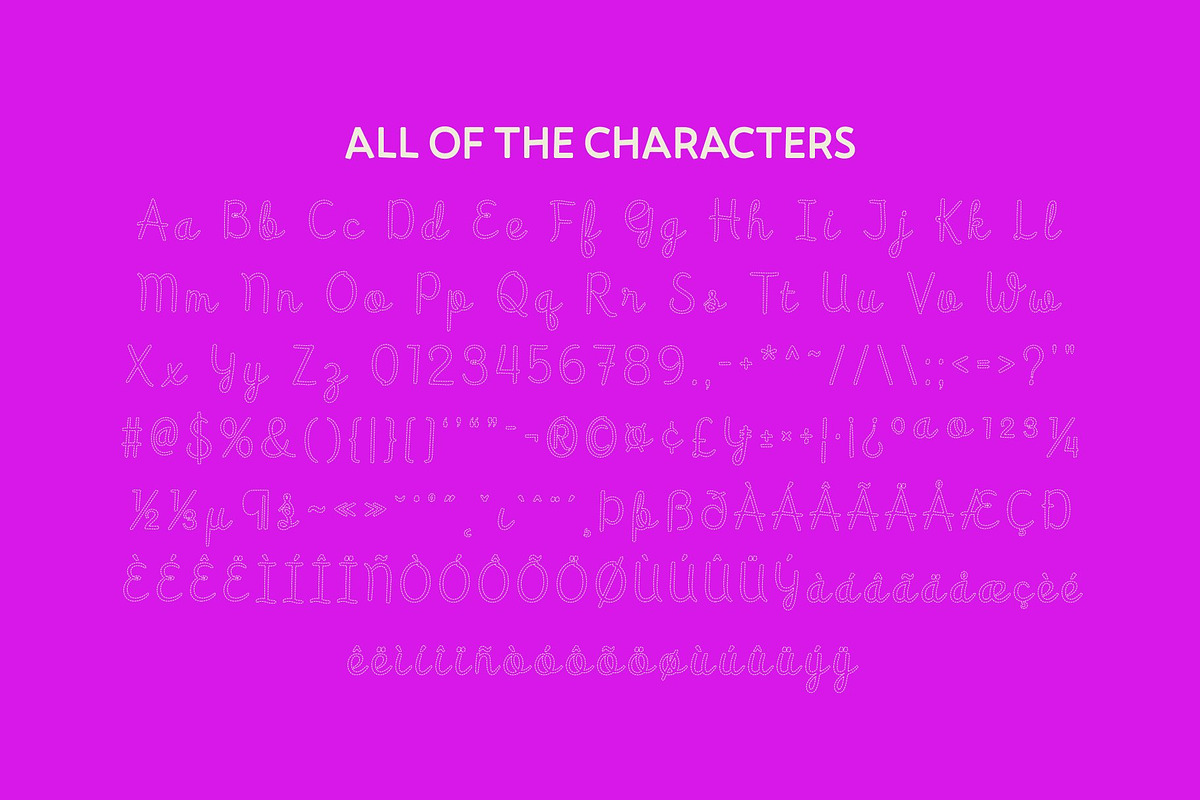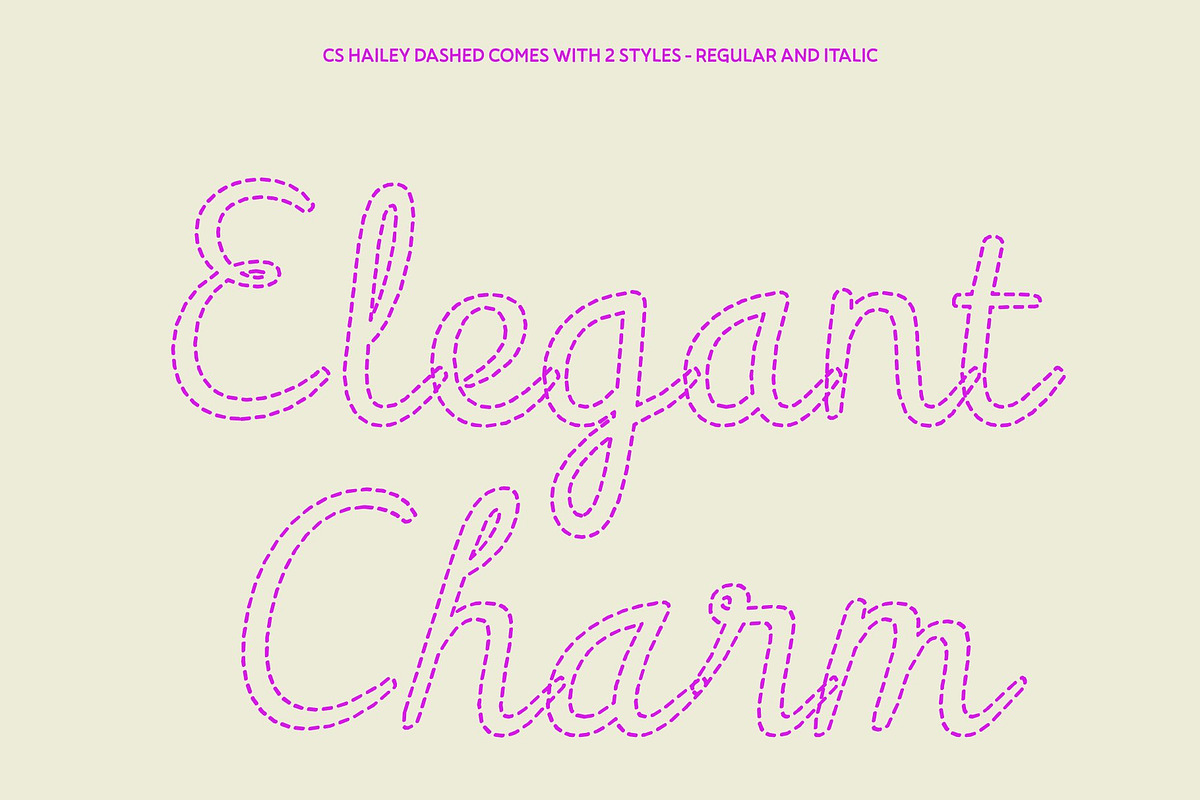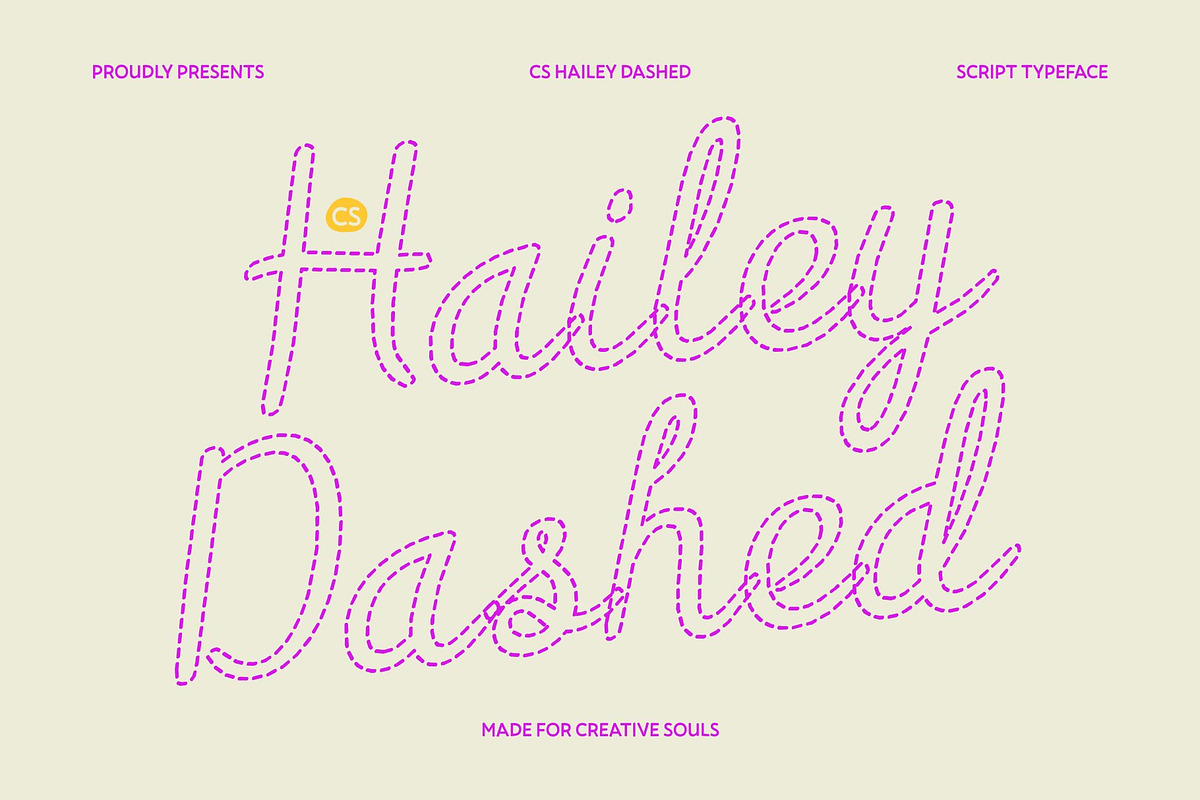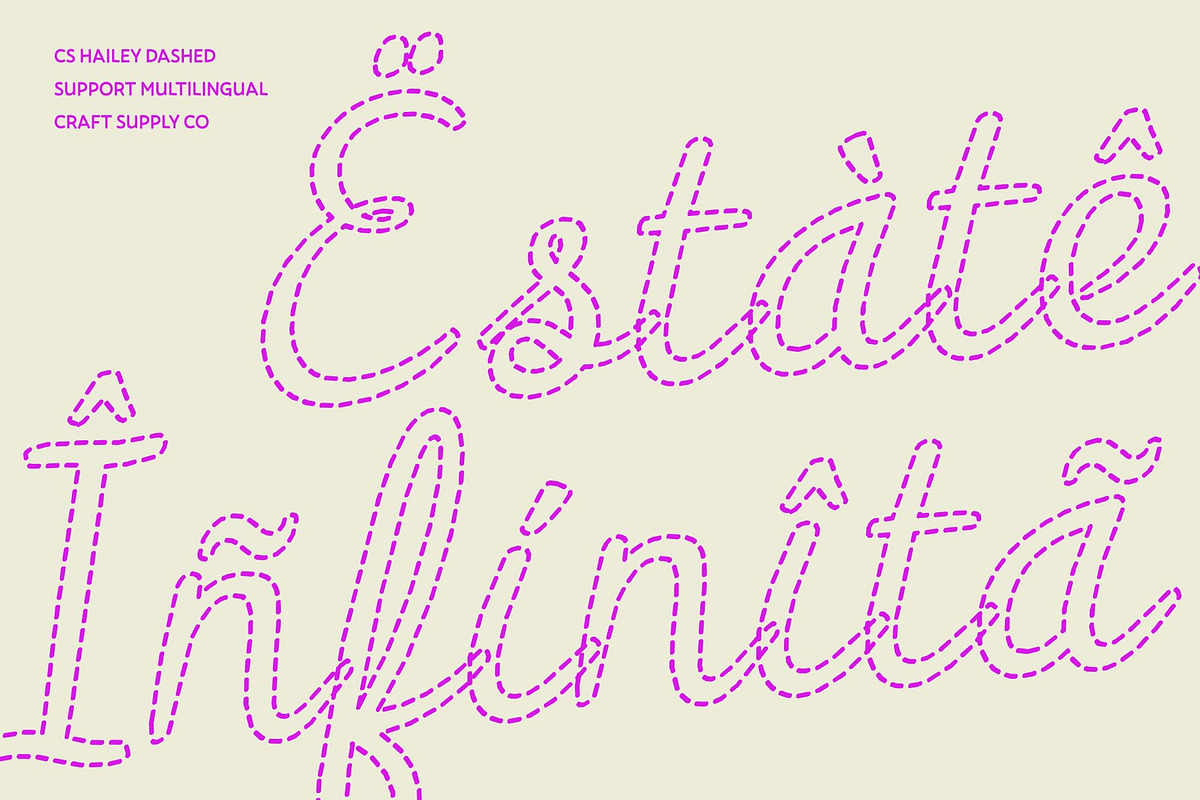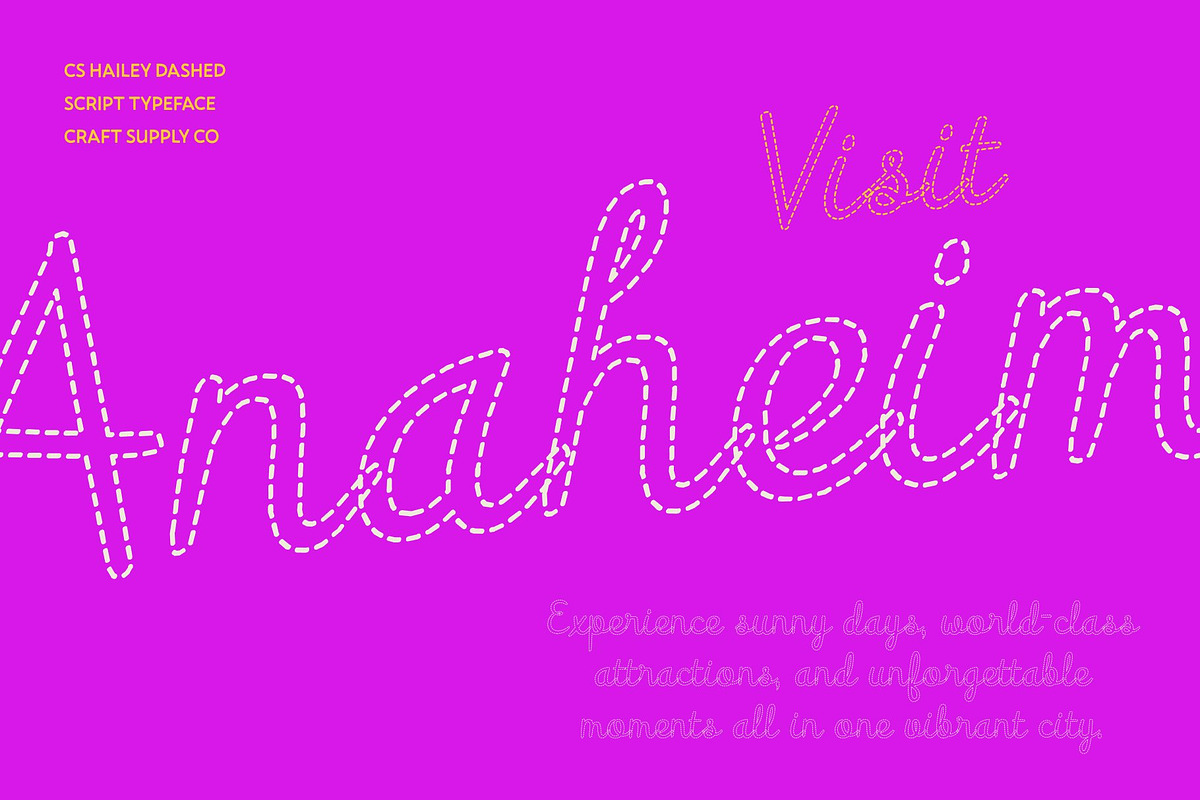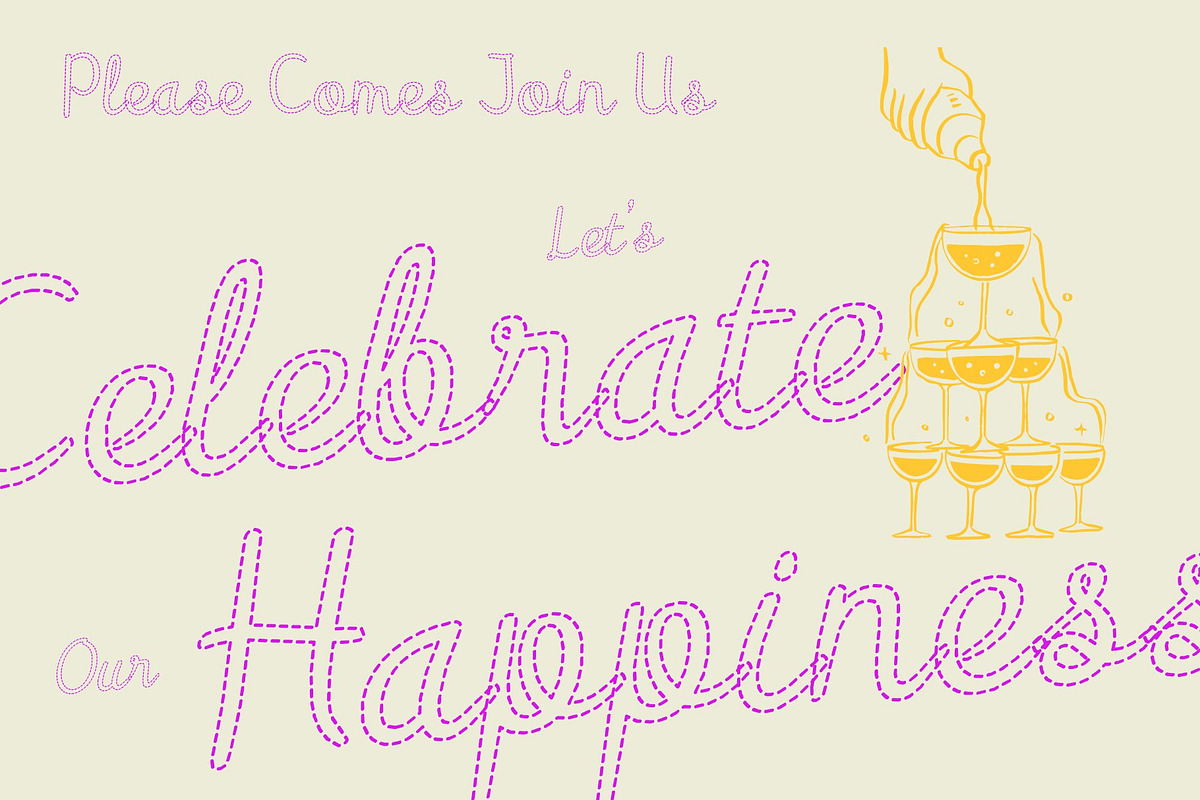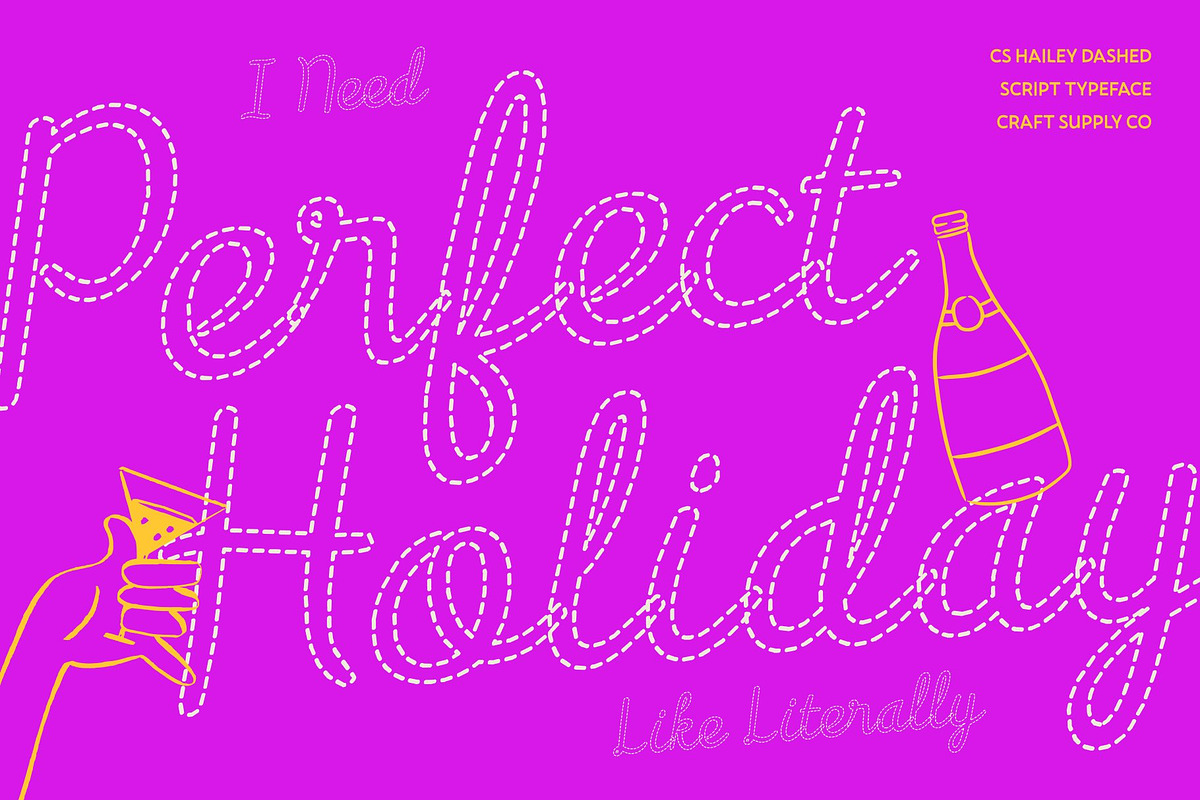
CS Hailey Dashed
CS Hailey Dashed – Script Font: Elegance with a Modern Flow
Smooth Curves with Timeless Grace and Airy Texture This font transforms flowing cursive into a light, artistic expression through its delicate dashed strokes. The graceful, sweeping letterforms retain their luxurious warmth while gaining a soft handcrafted texture that feels fresh, creative, and effortlessly elegant.
Balanced Between Classic and Modern Blending classic handwriting charm with contemporary minimalism, this script maintains clarity and sophistication in every curve. The dashed style introduces a relaxed rhythm that softens the polished structure, creating a harmonious balance between refinement and creativity.
Perfect for Premium and Feminine Branding Ideal for wedding invitations, boutique logos, luxury packaging, and upscale event stationery, this font brings a feminine and exclusive touch to visual identity. The broken-line structure adds personality and uniqueness, helping designs feel intimate, stylish, and thoughtfully crafted.
Versatile for Elegant and Creative Applications From editorial layouts and social media graphics to personal stationery and branding materials, this font adapts beautifully across print and digital formats. Whether used as a focal headline or a subtle accent, this font delivers elegance with a relaxed, modern flow.
CS Hailey Dashed Regular
CS Hailey Dashed Italic